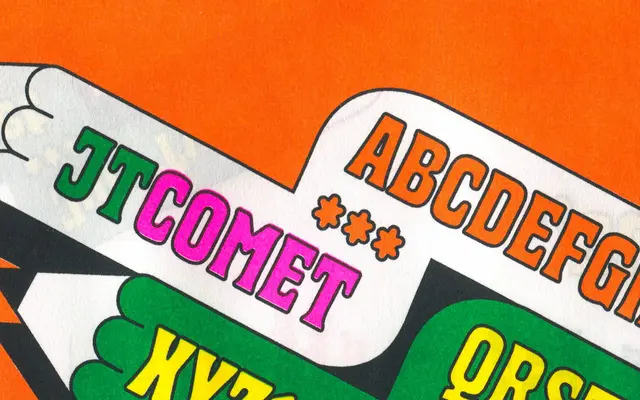
JT Comet
July Type · Edward Dżułaj, Nika Langosz, Lev Rastvortsev
A warm, chunky display typeface collectively designed by three designers, drawing from the charm of shop window lettering and food packaging vernacular.
Designed collaboratively by Edward Dżułaj, Nika Langosz and Lev Rastvortsev at July Type, JT Comet takes its spirit from Heinz Hoffmann's Herold Reclameschrift without functioning as a revival. Soft curves and playful proportions reference the hand-lettered signage of ice cream trucks and food packaging, giving it a friendly, approachable tone suited to branding work. Available in Regular and Italic, with Latin and Cyrillic script support.
A chunky, warm display typeface with soft curves and lettering-inspired character, drawing from shop window and food packaging vernacular rather than fitting neatly into a geometric or grotesque tradition.